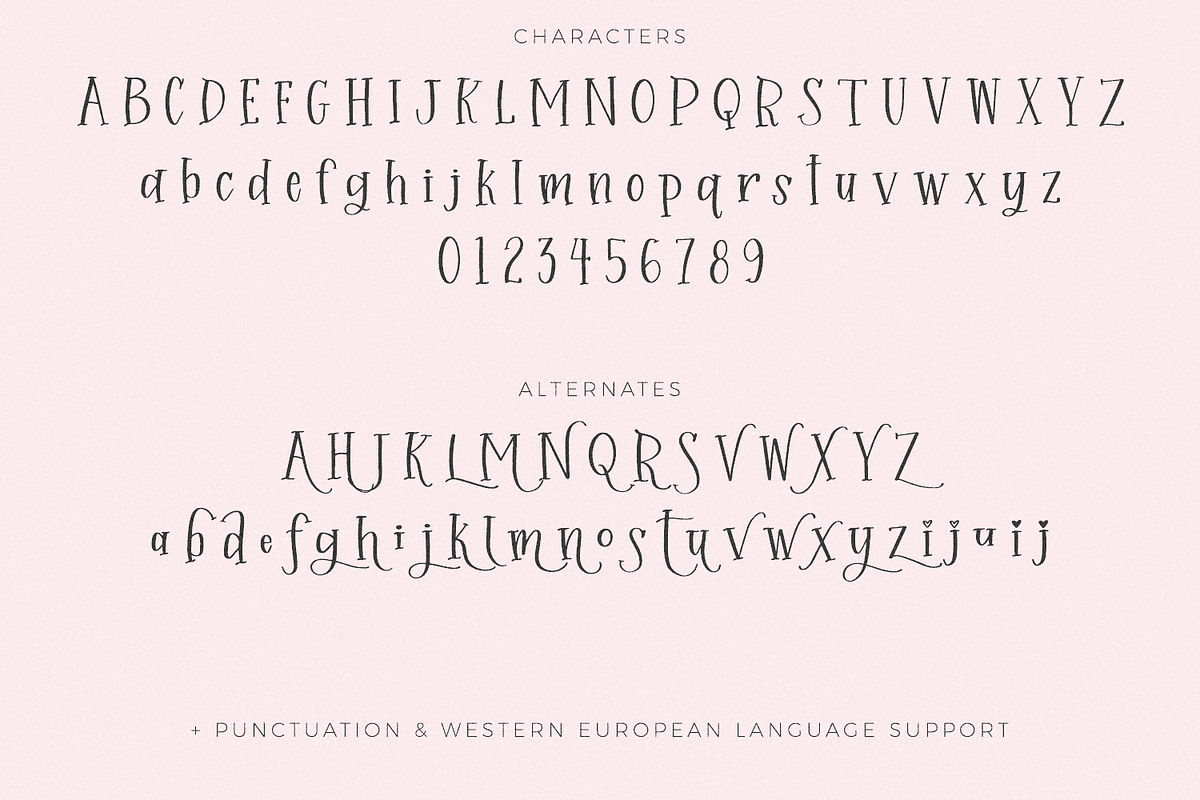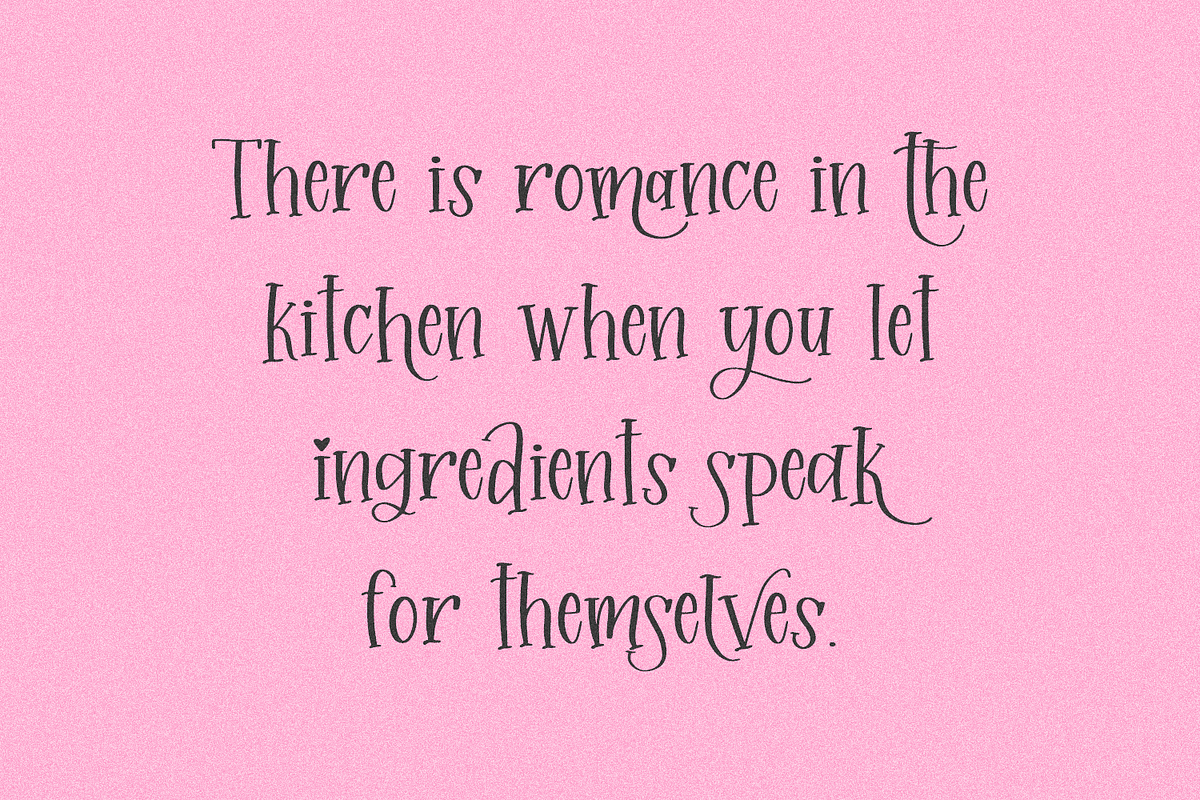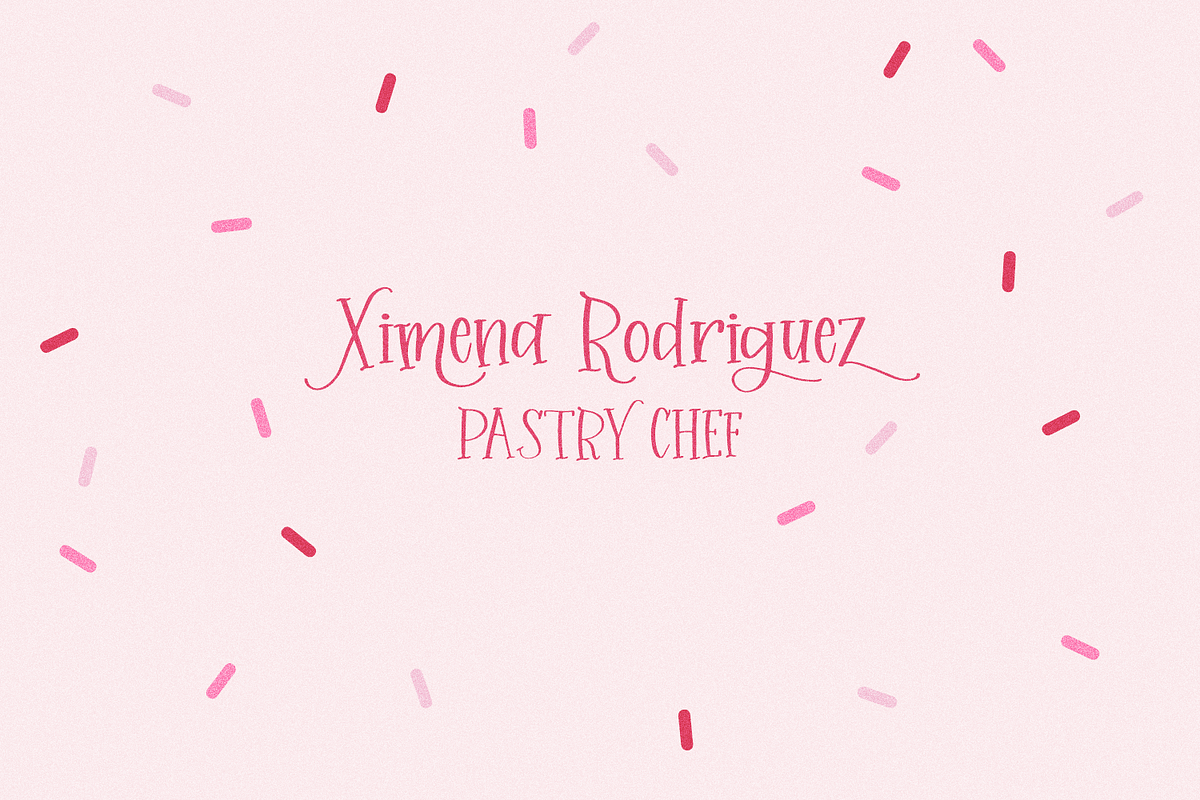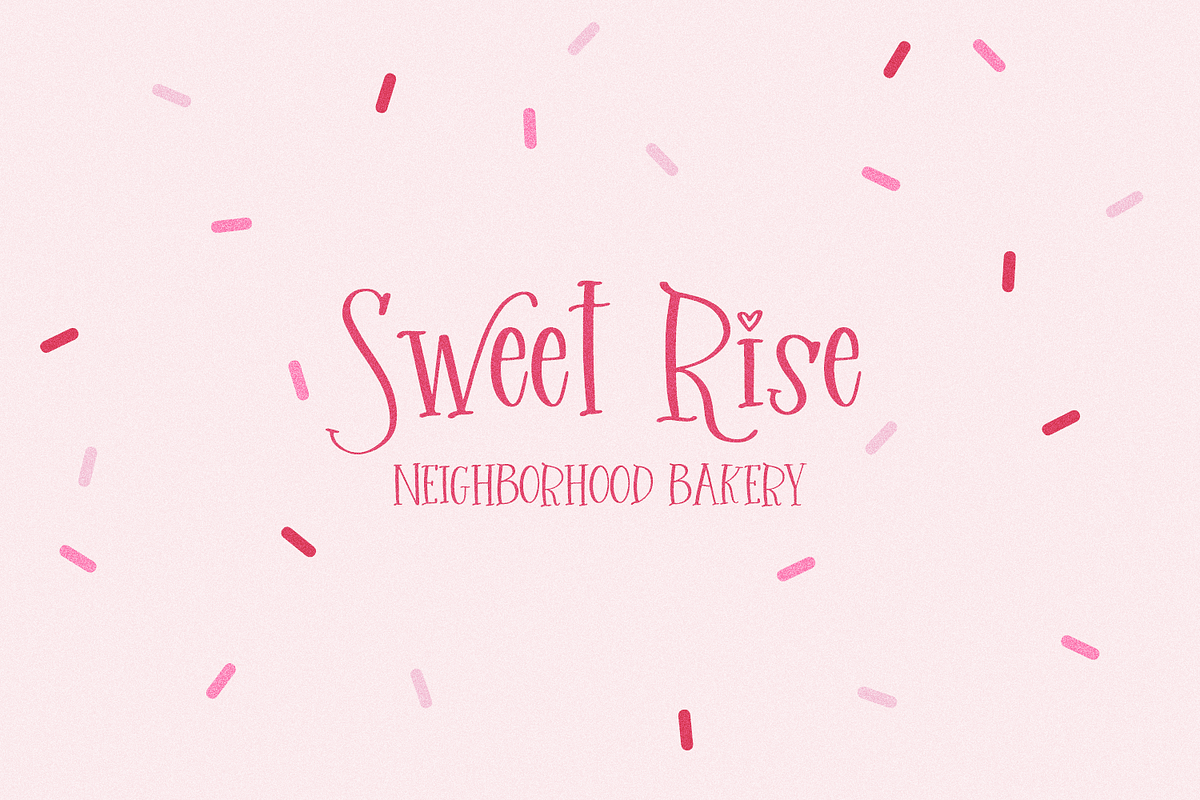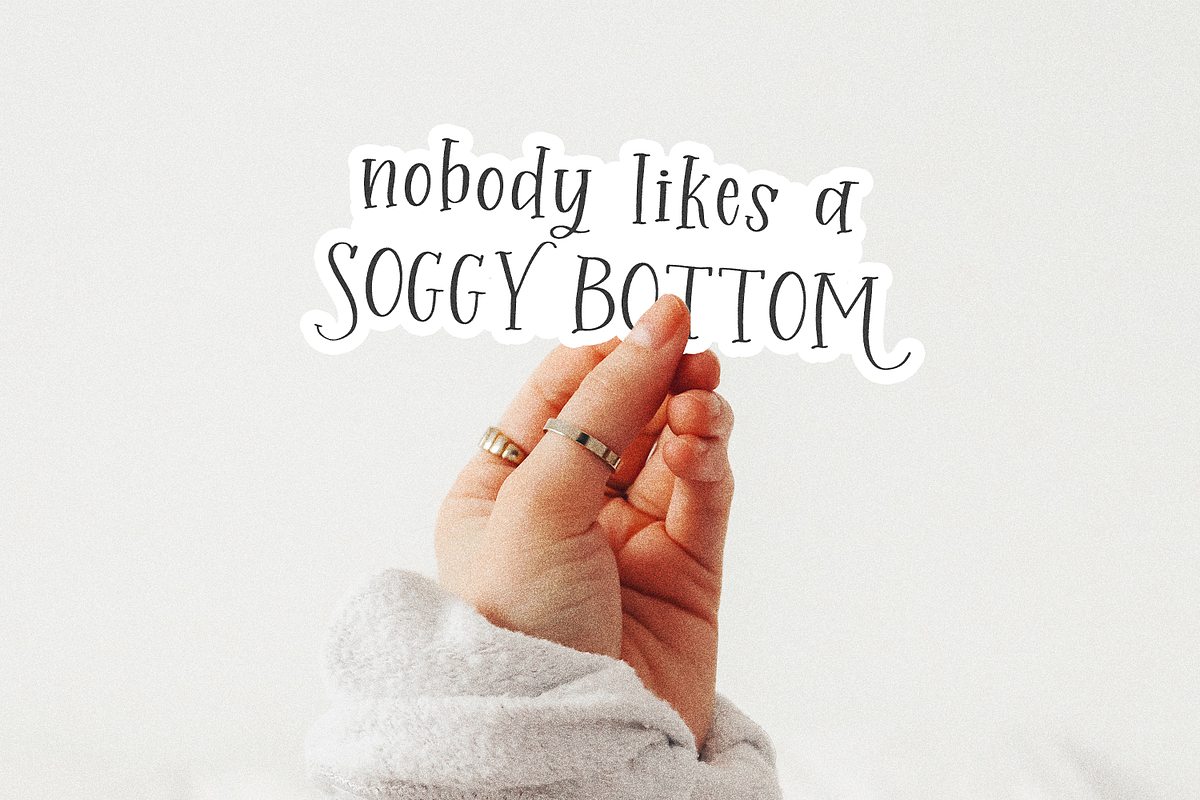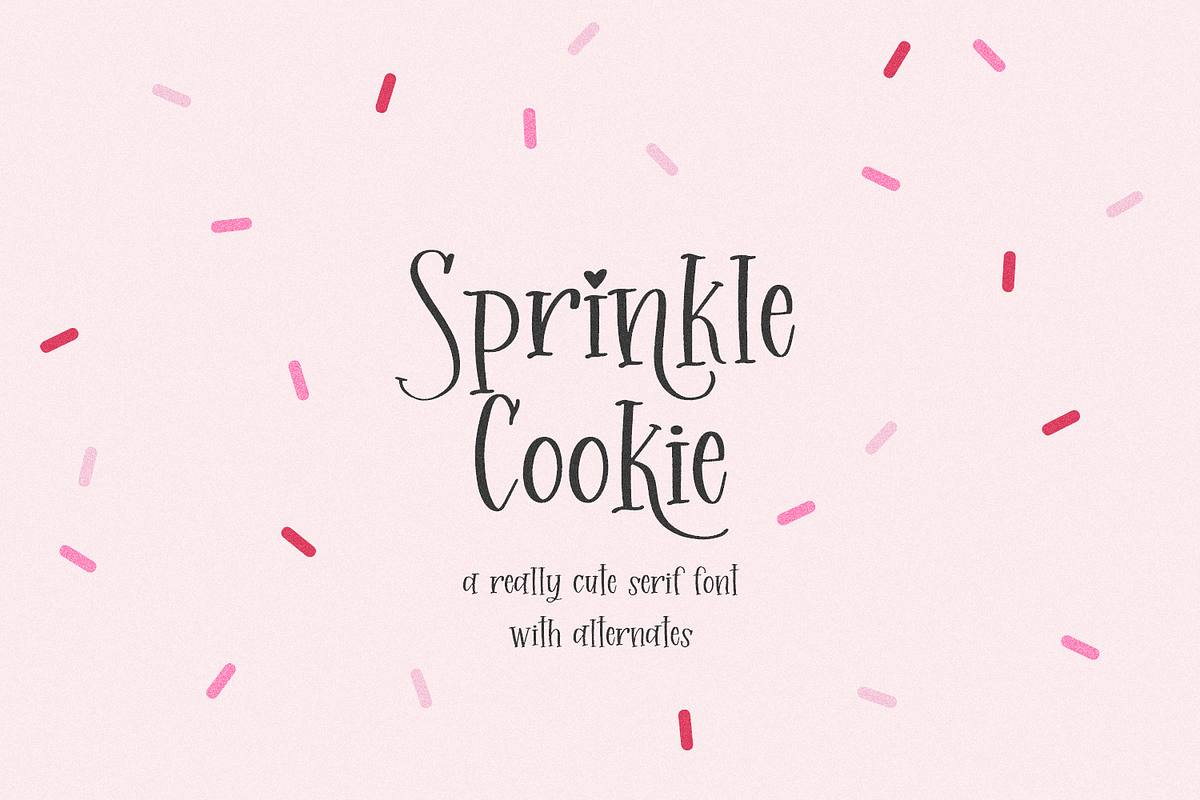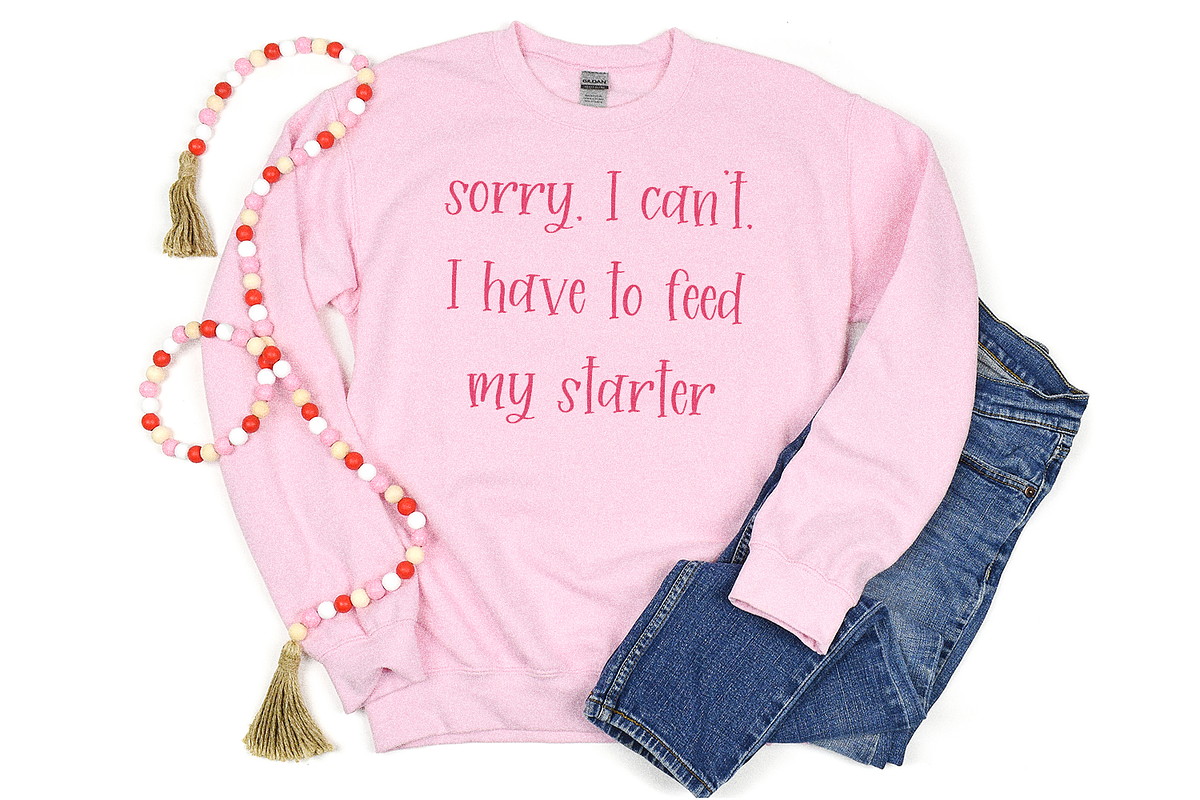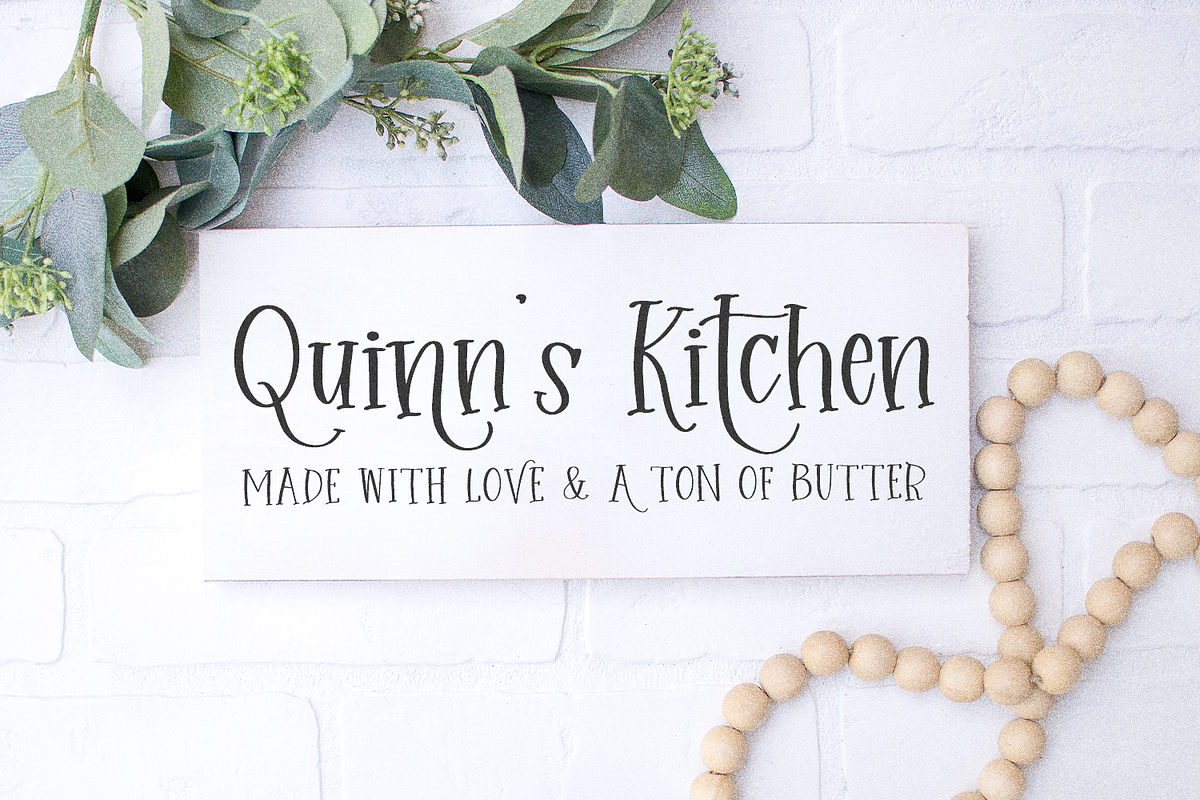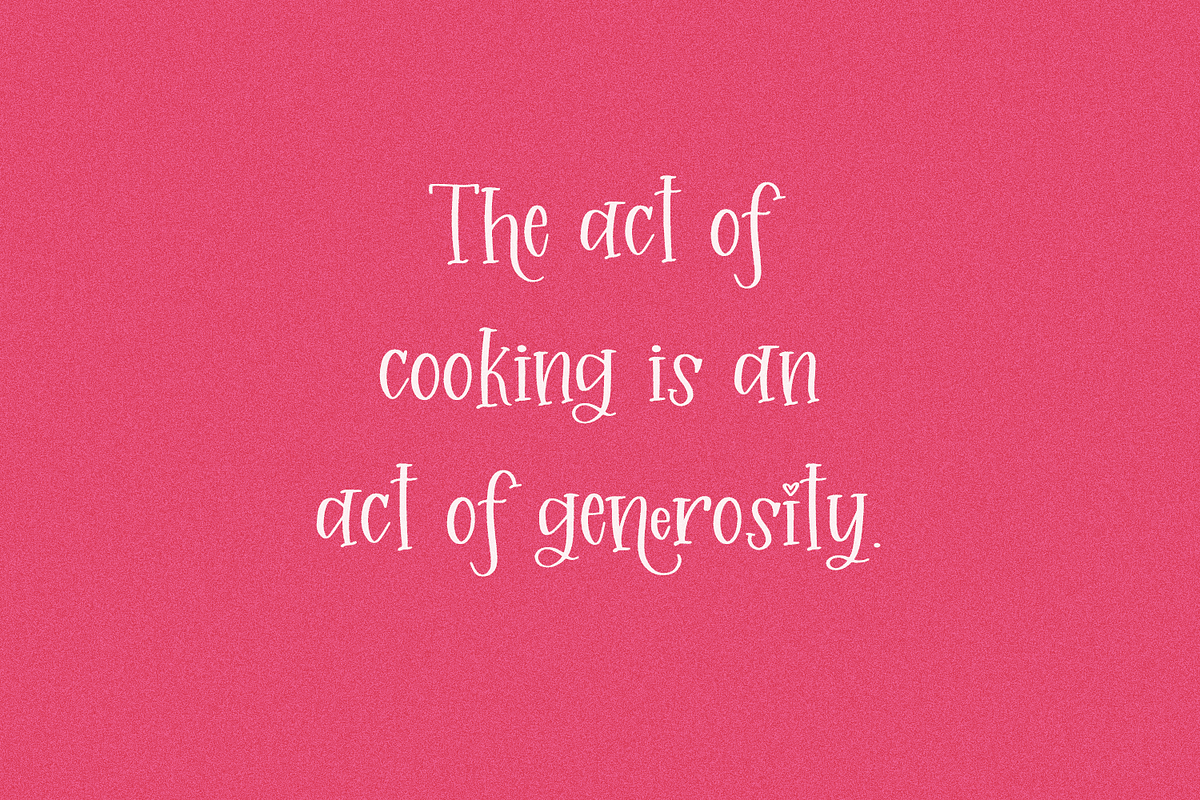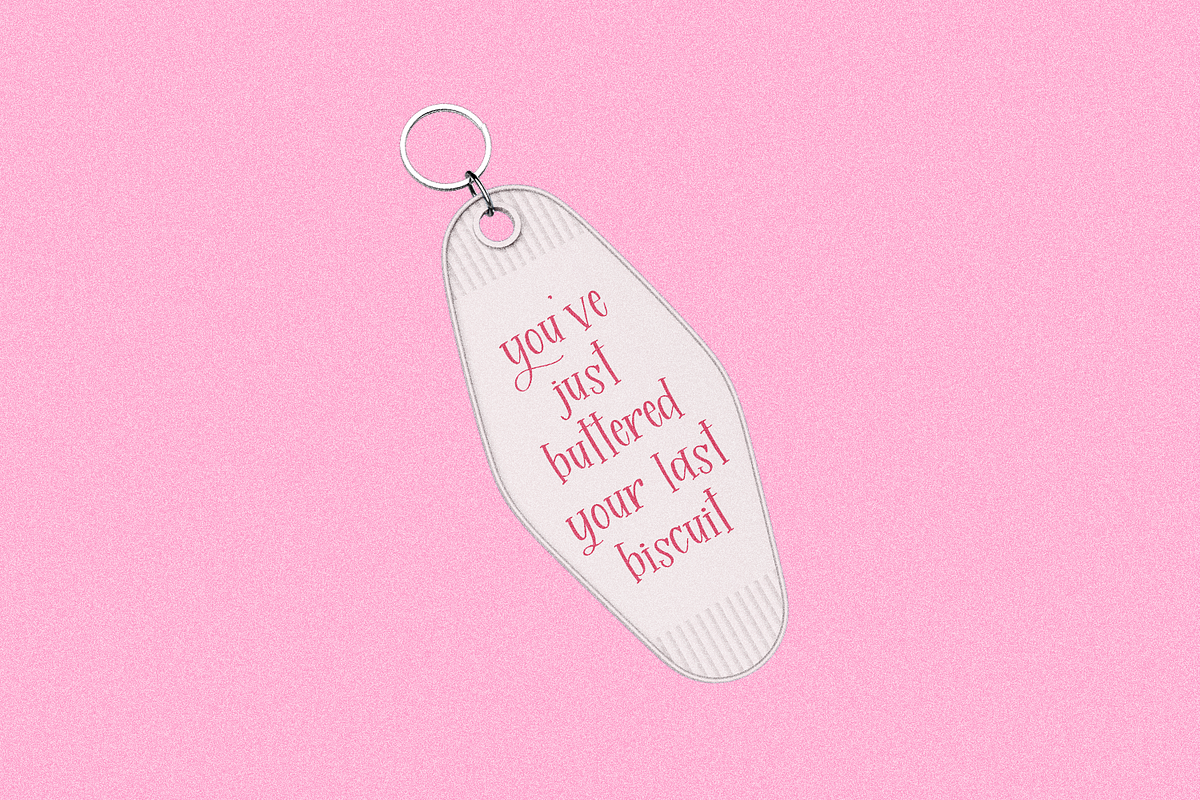
Sprinkle Cookie Serif
Sprinkle Cookie Serif is a hand lettered serif font with fun alternates. This font features skinny serifs and swooping flourishes, and plenty of customization options like i & j dotted with a heart! Sprinkle Cookie Serif is perfect for logos & branding, greeting cards, painted banners, digital planners, note-taking apps, Canva, Cricut projects, Silhouette projects, designing SVG files, laser cutting projects, & more.
Sprinkle Cookie Serif includes:
- full upper + lowercase characters
- numbers + punctuation
- PUA-encoding
- 42 alternates
- Western European language support - English, French, Spanish, Portuguese (Brazil), Portuguese (Portugal), Italian, German (Germany), German (Austria), Dutch, Danish, Swedish, Norwegian (Bokmål and Nynorsk), Finnish, Icelandic, Irish, Welsh